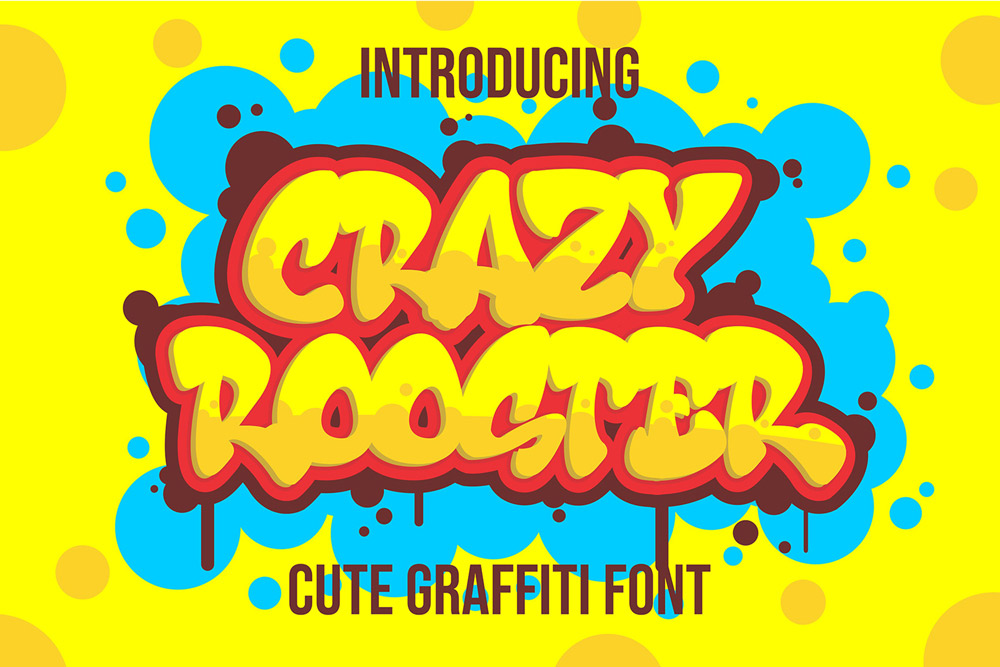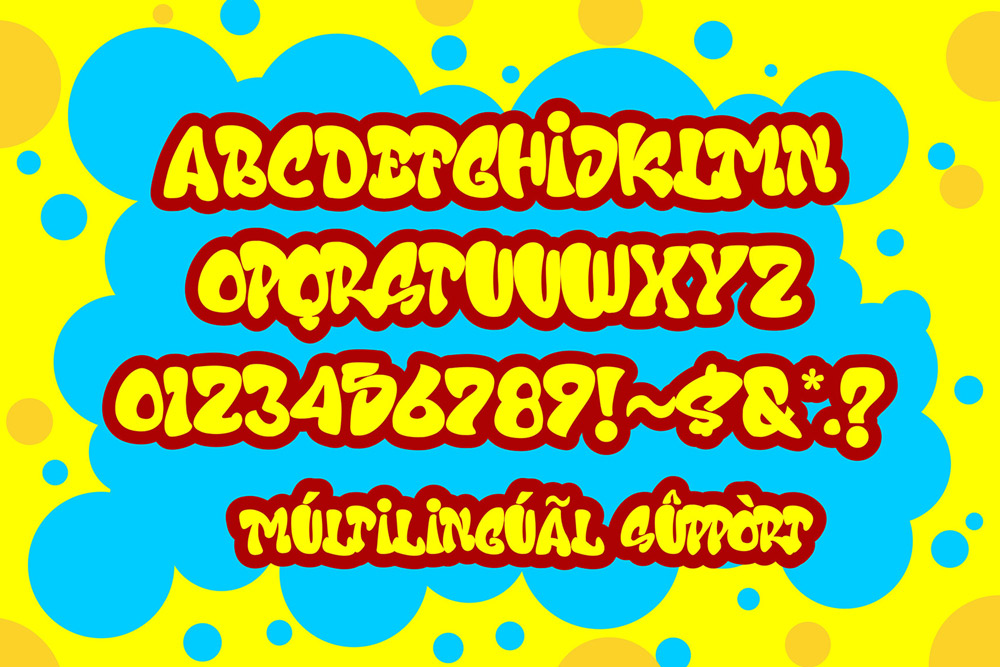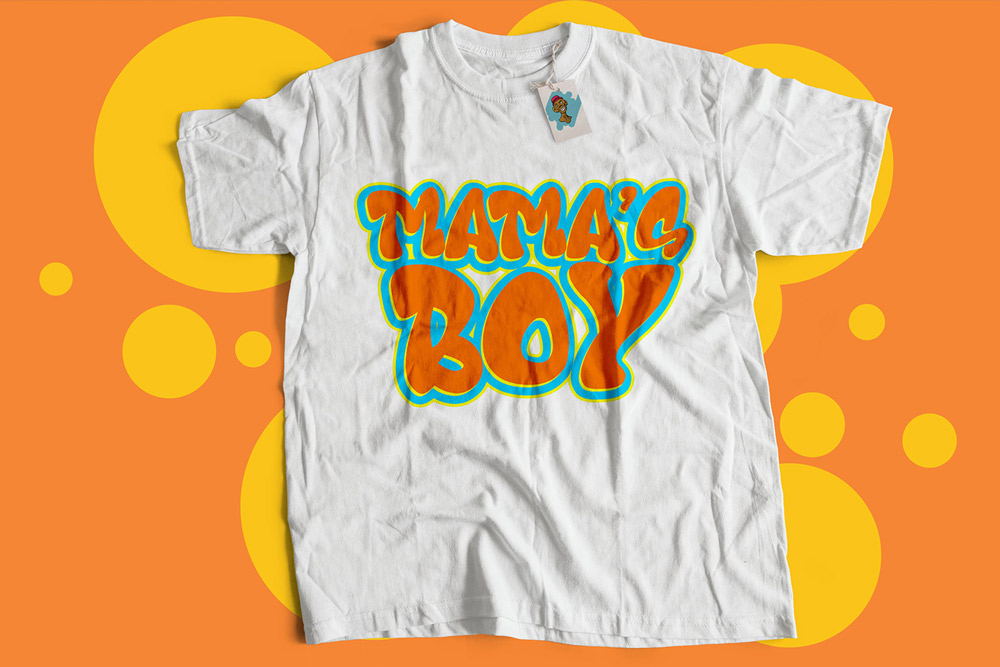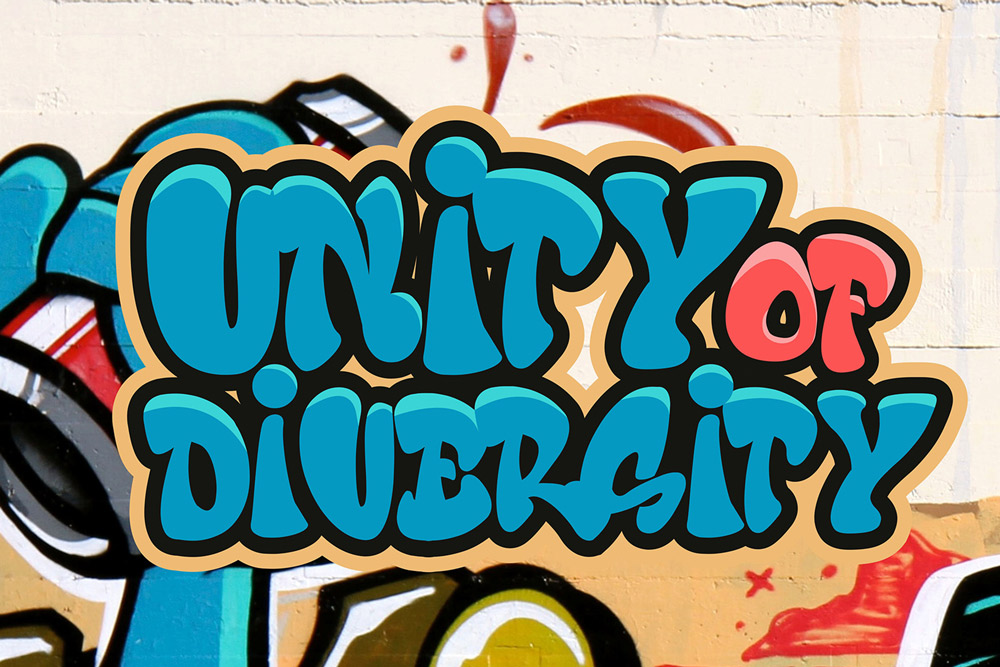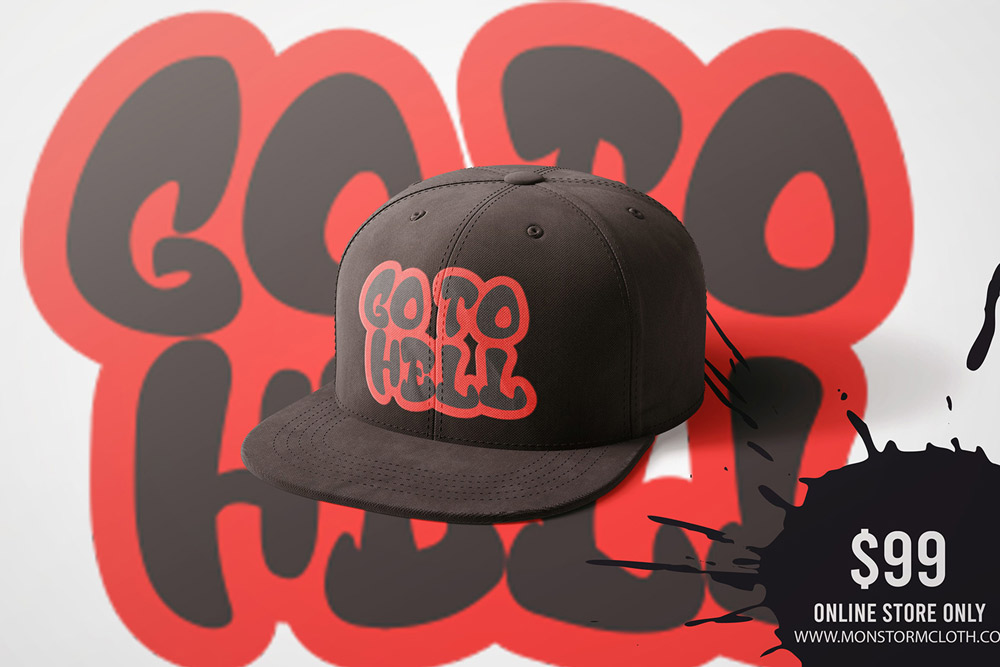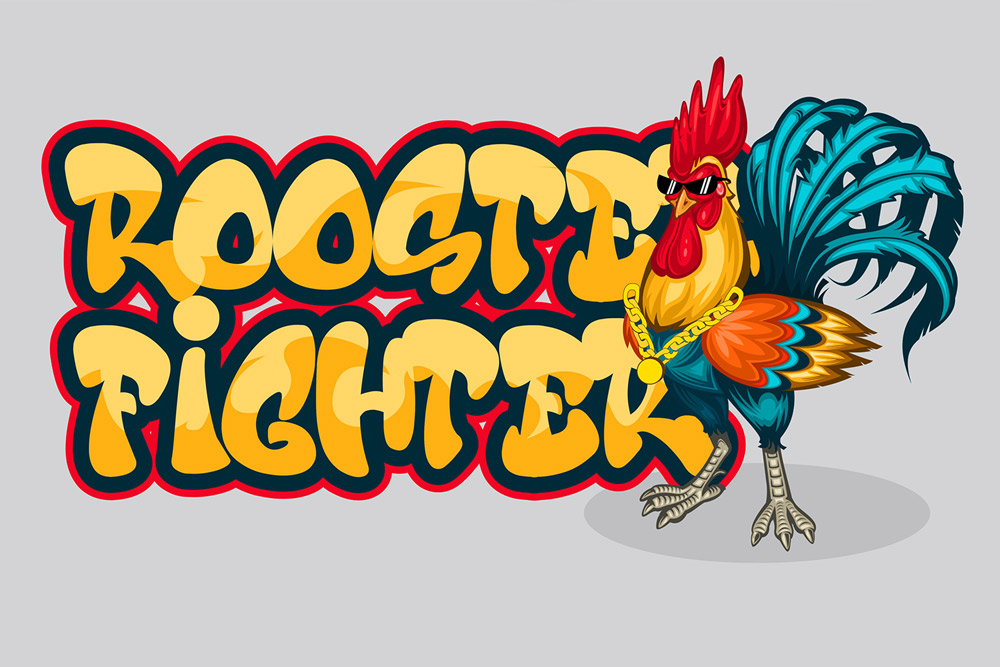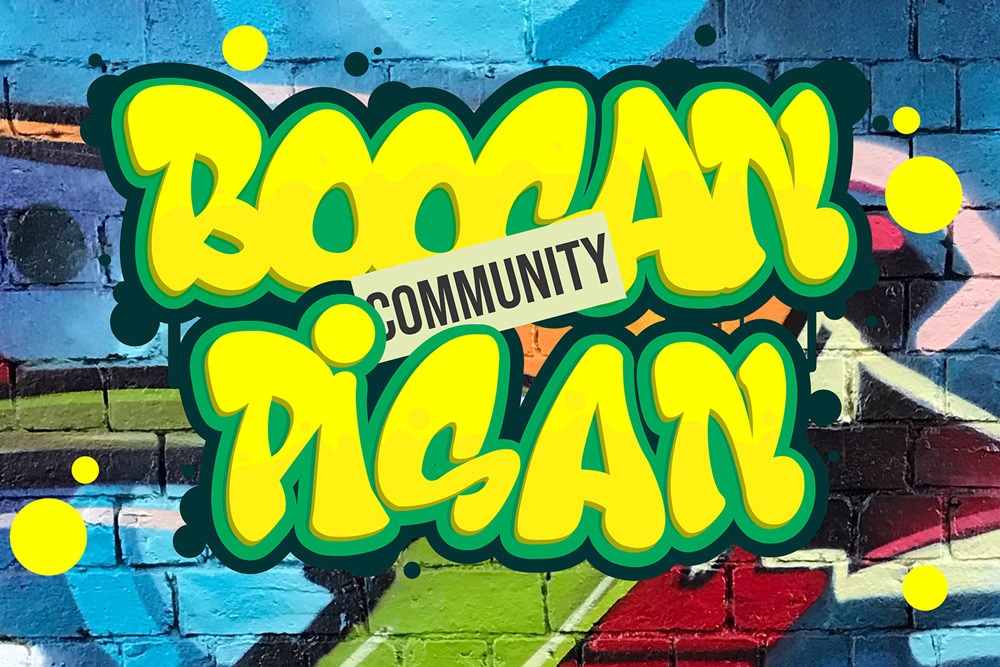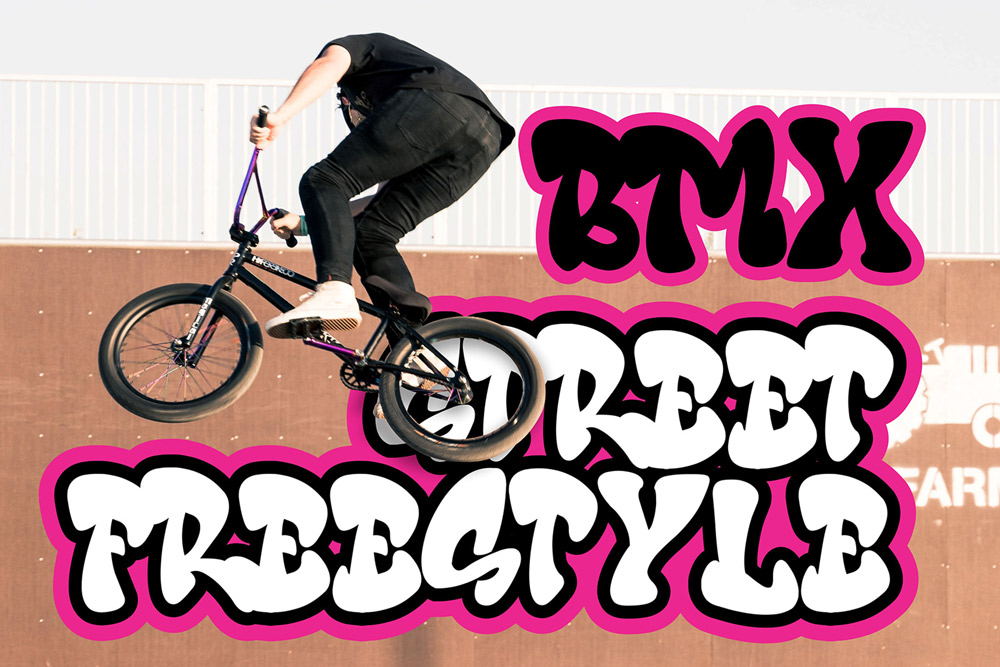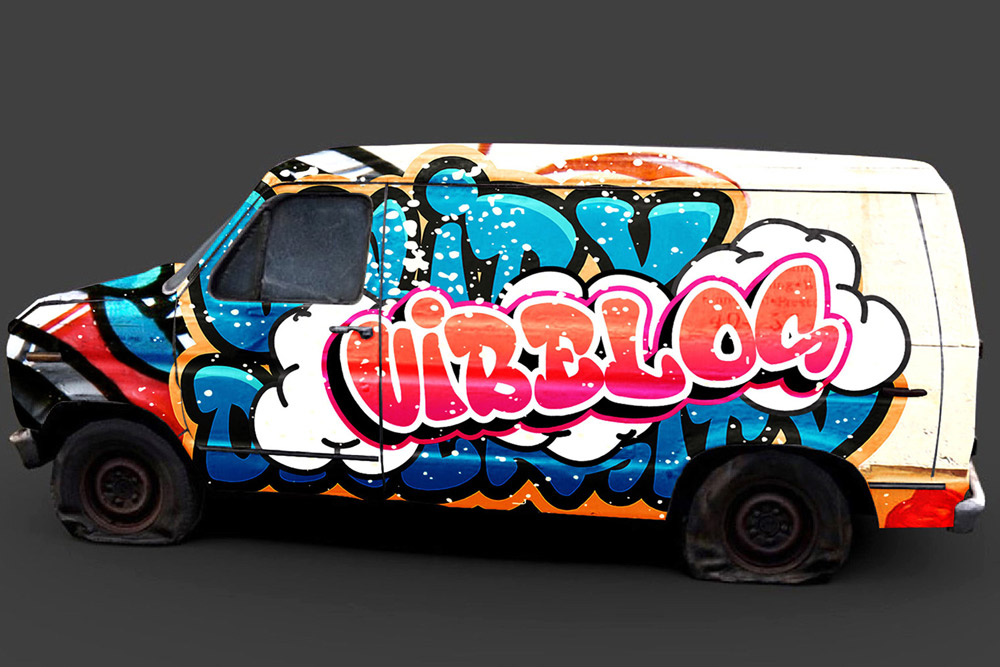
About Crazy Rooster
Crazy Rooster is a bold chubby graffiti font inspired by playful street art, urban bubble lettering, underground graffiti culture, and modern streetwear typography trends. Designed with thick rounded letterforms and energetic urban style, this graffiti display font delivers fun visual impact for modern creative projects. Whether you are creating streetwear branding, gaming graphics, music posters, social media content, or merchandise designs, Crazy Rooster helps your typography stand out with expressive street-inspired personality.
This chubby graffiti font combines playful bubble typography with authentic urban aesthetics, making it ideal for creators who want bold and eye-catching designs. The rounded graffiti letterforms create a friendly yet energetic visual style that works perfectly for youth-oriented branding, digital graphics, apparel projects, and entertainment visuals. Designers searching for a bubble graffiti font with modern street appeal will appreciate the balance between fun typography and professional usability.
Crazy Rooster is built to create strong visual energy while maintaining excellent readability across both print and digital media. The urban bubble style gives every composition a lively and rebellious atmosphere that instantly captures attention. From gaming logos and YouTube thumbnails to music artwork and fashion branding, this modern graffiti font adapts beautifully to different creative directions.
Chubby Graffiti Font Style
Crazy Rooster features bold rounded graffiti lettering inspired by street murals, bubble tags, urban wall art, and playful spray paint typography. The thick letterforms create a fun and energetic street aesthetic.
Uppercase Characters
This urban graffiti font includes complete uppercase characters carefully crafted with playful bubble details and bold street personality.
Multilingual Support
Crazy Rooster supports multilingual characters, making it suitable for international branding projects, merchandise, posters, and social media campaigns.
Number and Punctuation
This playful graffiti font includes complete numbers and punctuation marks for flexible typography compositions across print and digital media.
Why Designers Love Crazy Rooster
Fun Urban Bubble Aesthetic
Designers love Crazy Rooster because it captures playful graffiti culture while maintaining professional typography structure. The rounded bubble style instantly creates a lively and energetic atmosphere.
Perfect for Streetwear Branding
Crazy Rooster works beautifully for clothing brands, youth fashion campaigns, sneaker promotions, and urban merchandise. The chubby graffiti style creates strong street culture identity.
Excellent for Gaming and Entertainment
This bubble graffiti font is ideal for gaming logos, esports graphics, YouTube thumbnails, music posters, Twitch banners, and playful entertainment branding.
Strong Social Media Appeal
Content creators and digital marketers use Crazy Rooster for Instagram graphics, TikTok posts, YouTube banners, and viral social media visuals because the typography feels fun, bold, and highly engaging.
Easy to Read and Highly Versatile
Despite its playful graffiti appearance, Crazy Rooster maintains excellent readability and works well across posters, branding systems, packaging, merchandise, and digital campaigns.
Perfect For
Crazy Rooster is perfect for:
- Streetwear branding
- Bubble graffiti logos
- Gaming typography
- Esports branding
- Hip hop posters
- Music artwork
- YouTube thumbnails
- Social media graphics
- Urban merchandise
- Sticker design
- Skateboard graphics
- Kids branding
- Youth fashion campaigns
- Promotional posters
- Digital advertising
- Creative typography projects
- Apparel graphics
- Festival flyers
- Fun branding systems
- Urban street visuals
Bubble Graffiti Typography for Modern Branding
Modern branding trends increasingly embrace bubble graffiti typography and playful urban visuals because they communicate creativity, friendliness, energy, and youthful expression. Crazy Rooster is designed specifically to support these modern design trends through rounded graffiti lettering and expressive urban style.
The thick chubby letterforms help create branding visuals that feel approachable while still maintaining authentic street culture personality. This playful graffiti font works especially well for projects targeting younger audiences, gaming communities, content creators, and modern fashion consumers.
Crazy Rooster performs beautifully in large headlines, social media graphics, merchandise designs, posters, and digital campaigns. The bold bubble structure ensures high readability while delivering strong visual personality.